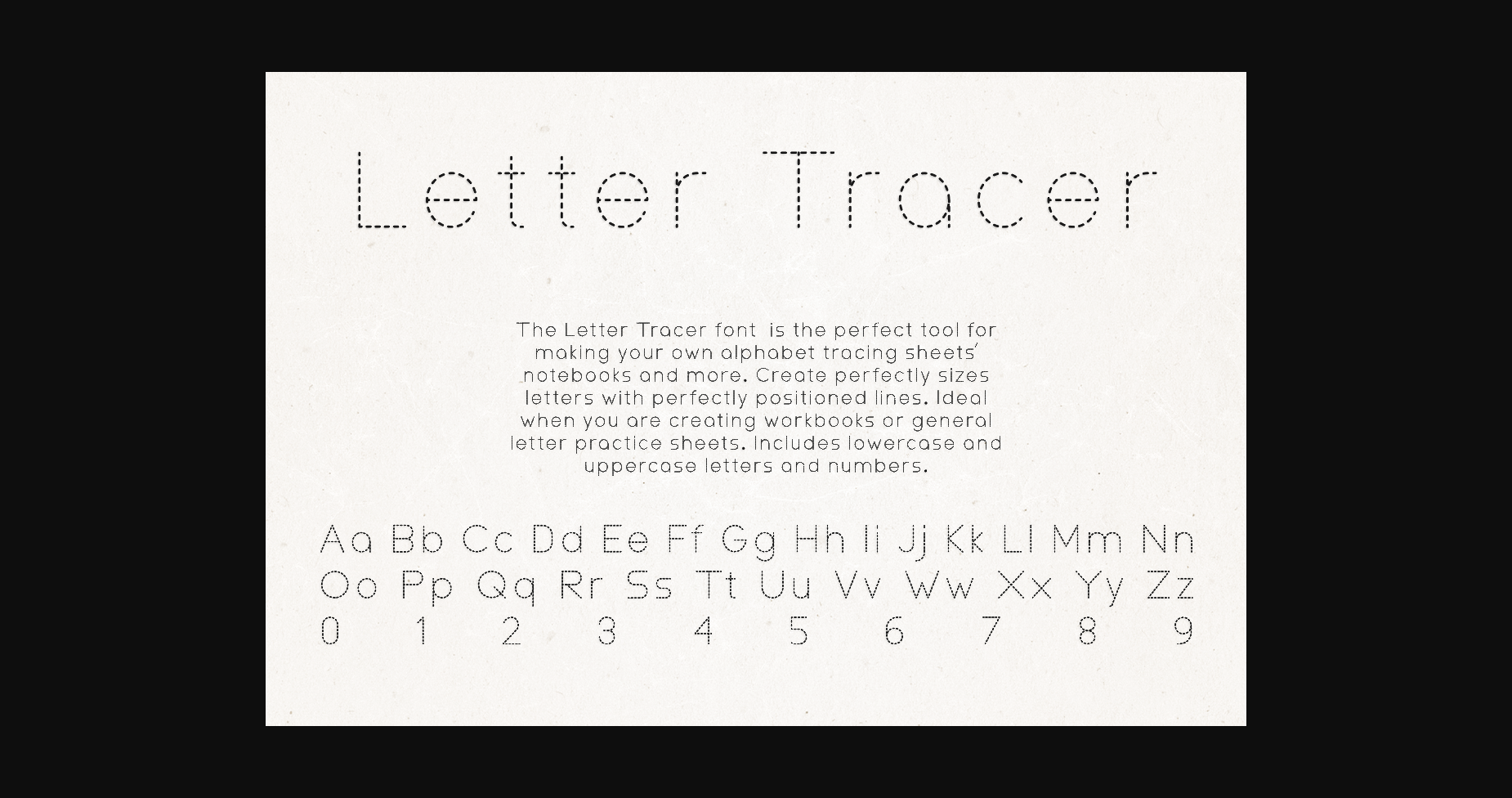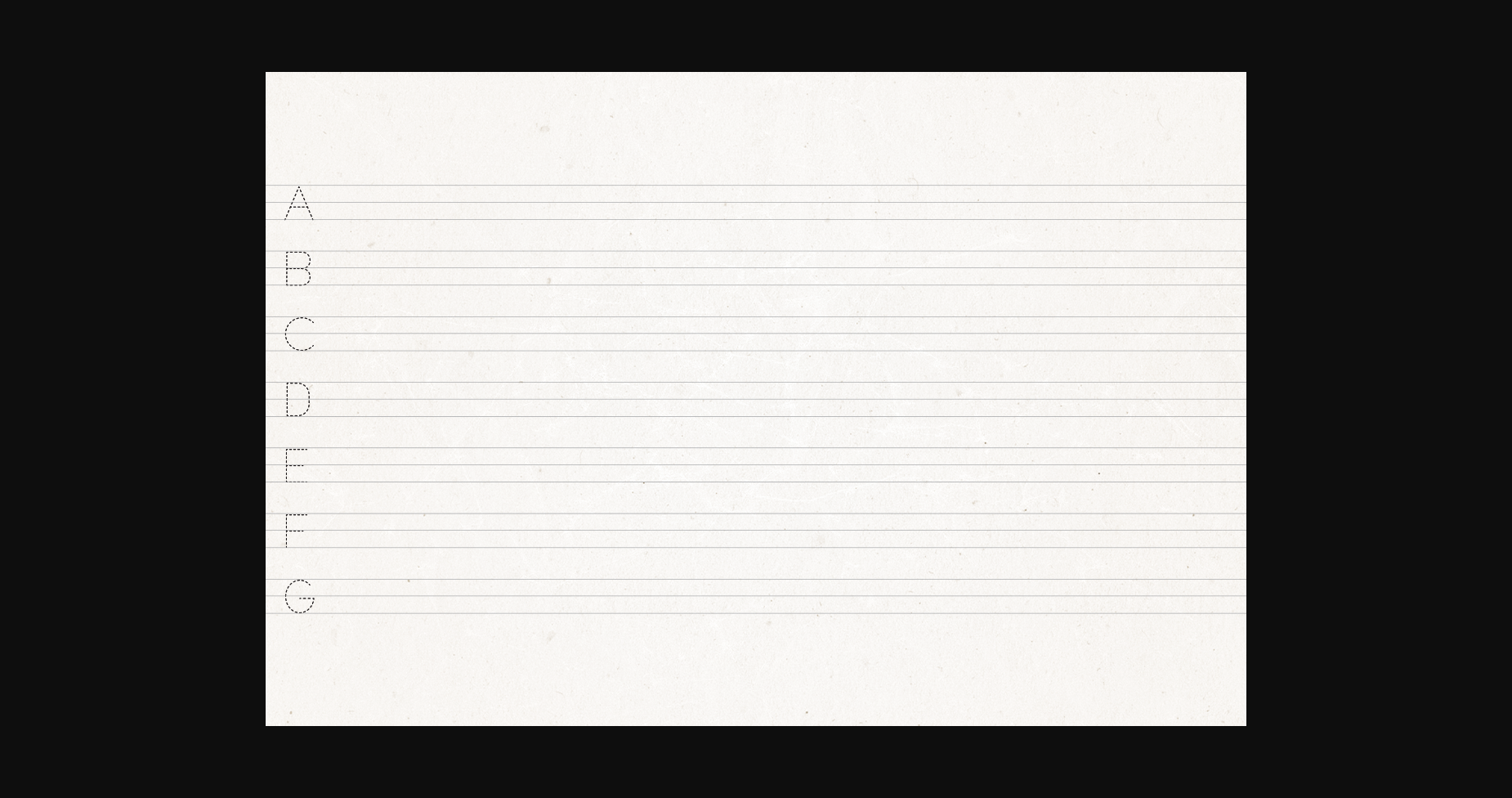
About Letter Tracer Font
The Letter Tracer font is the perfect tool for making your own alphabet tracing sheets, notebooks and more. Create perfectly sized letters with perfectly positioned lines. Ideal when you are creating workbooks or general letter practice sheets.